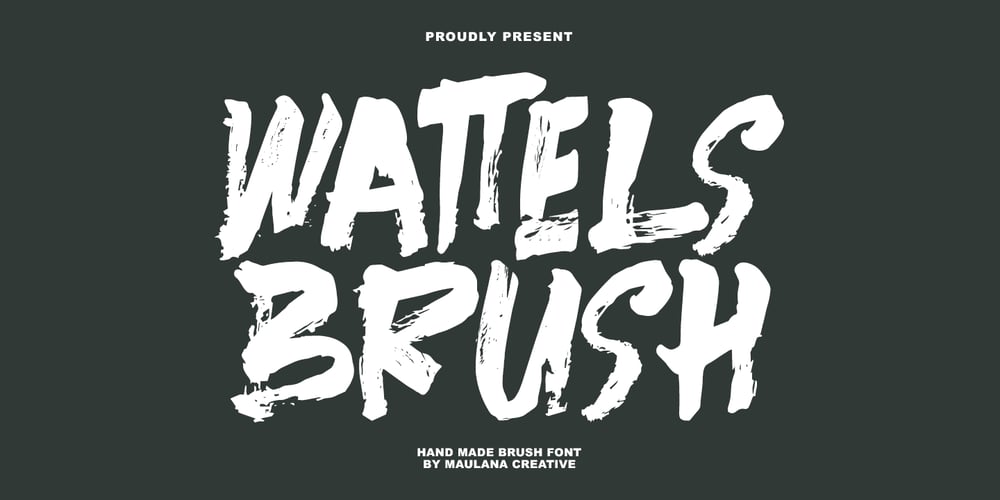
MC Wattels Font Family was designed by Gilang Maulana and published by Maulana Creative. MC Wattels contains 1 styles and family package options. Give your designs an authentic handcrafted feel. “Wattels Brush Handmade Font” is perfectly suited to signature, stationery, logo, typography quotes, magazine or book cover, website header, clothing, branding, packaging design and more.Thanks for use this font,Maulana Creative